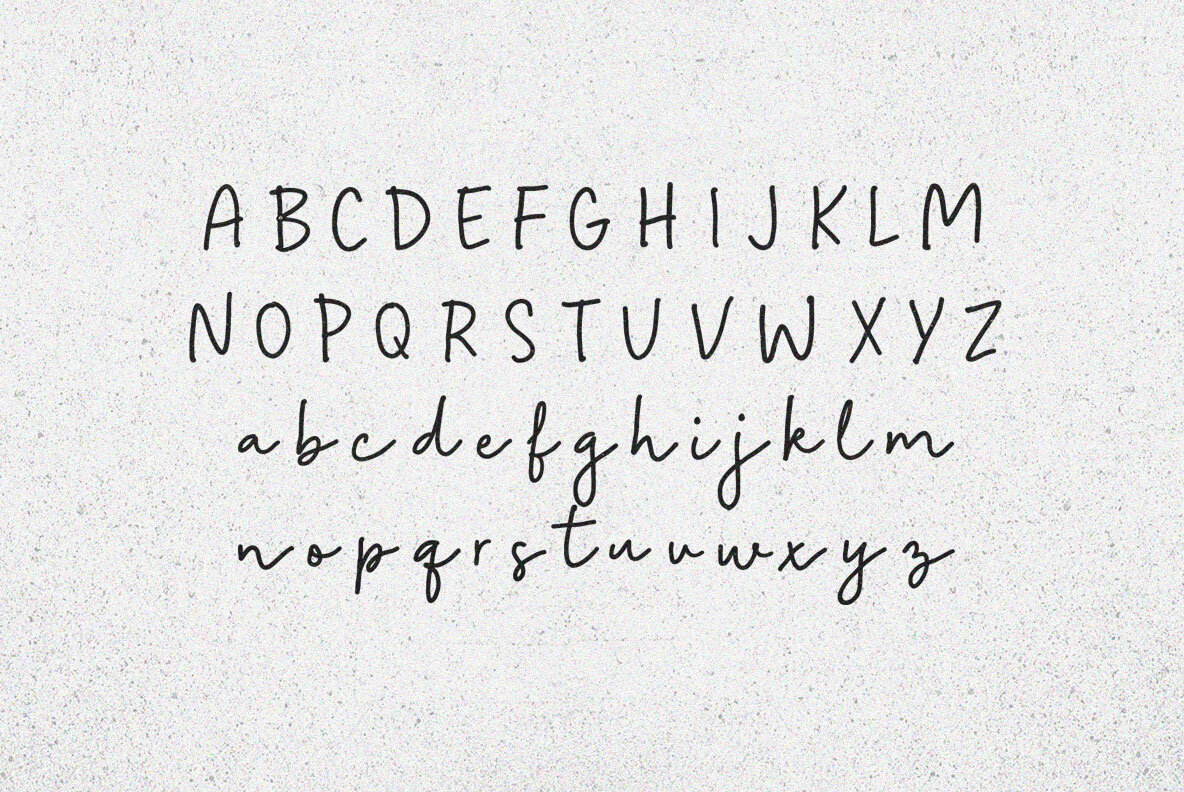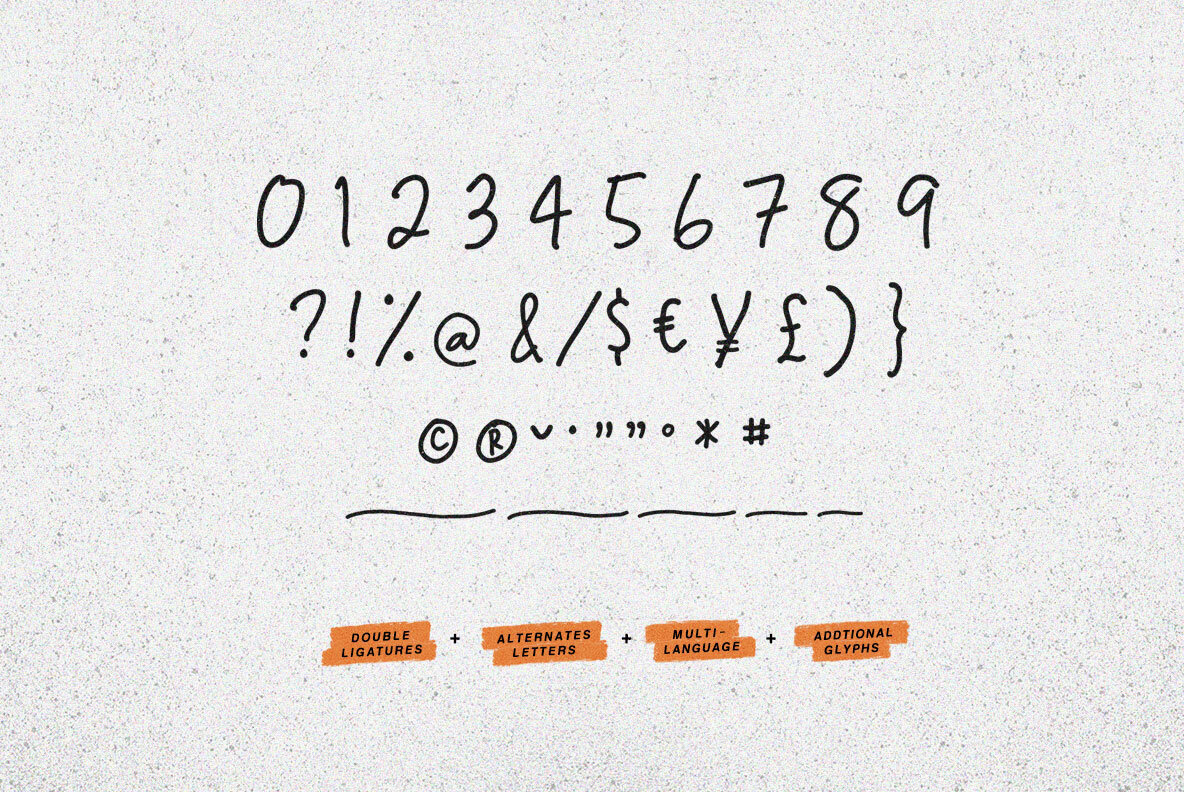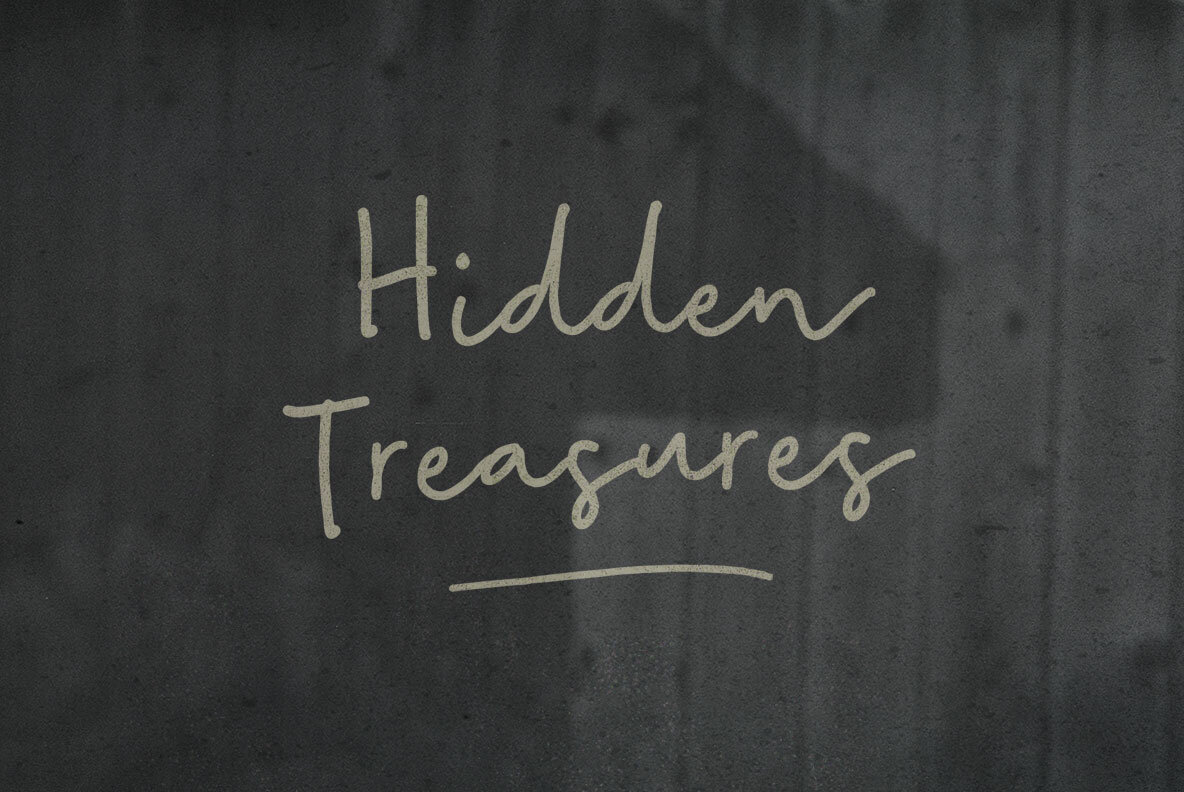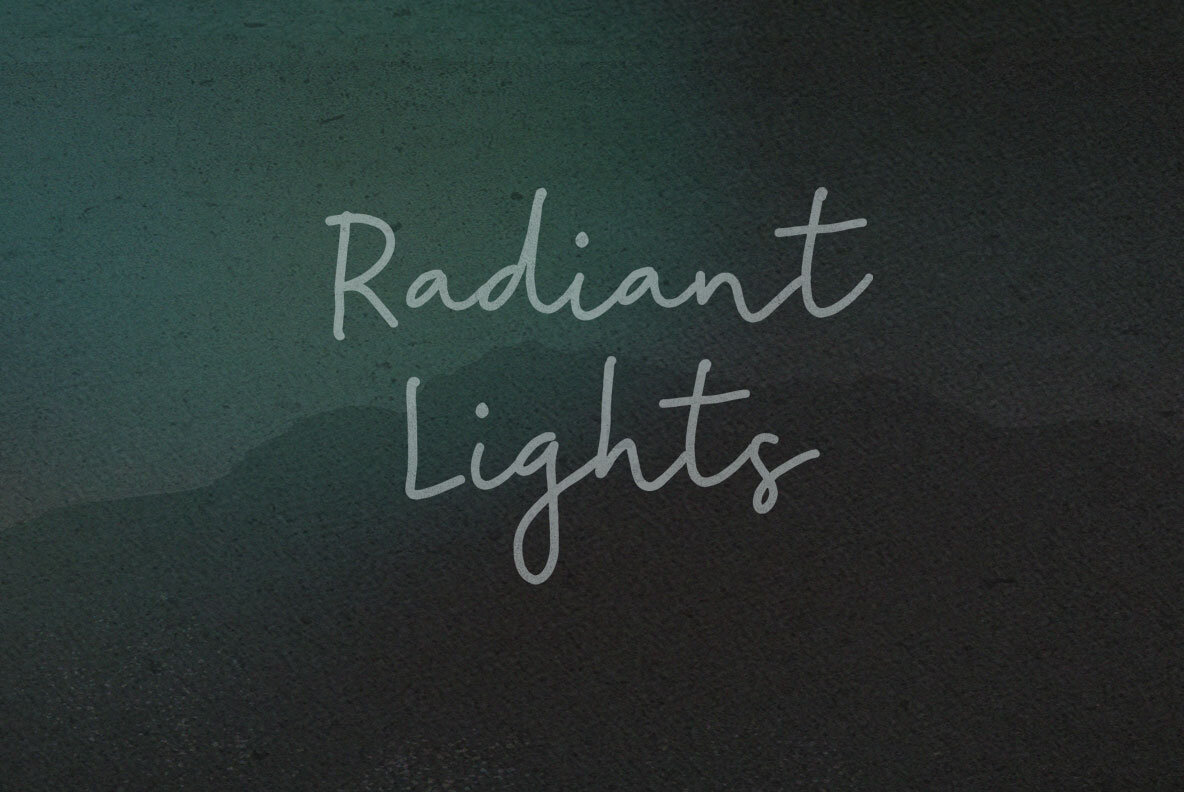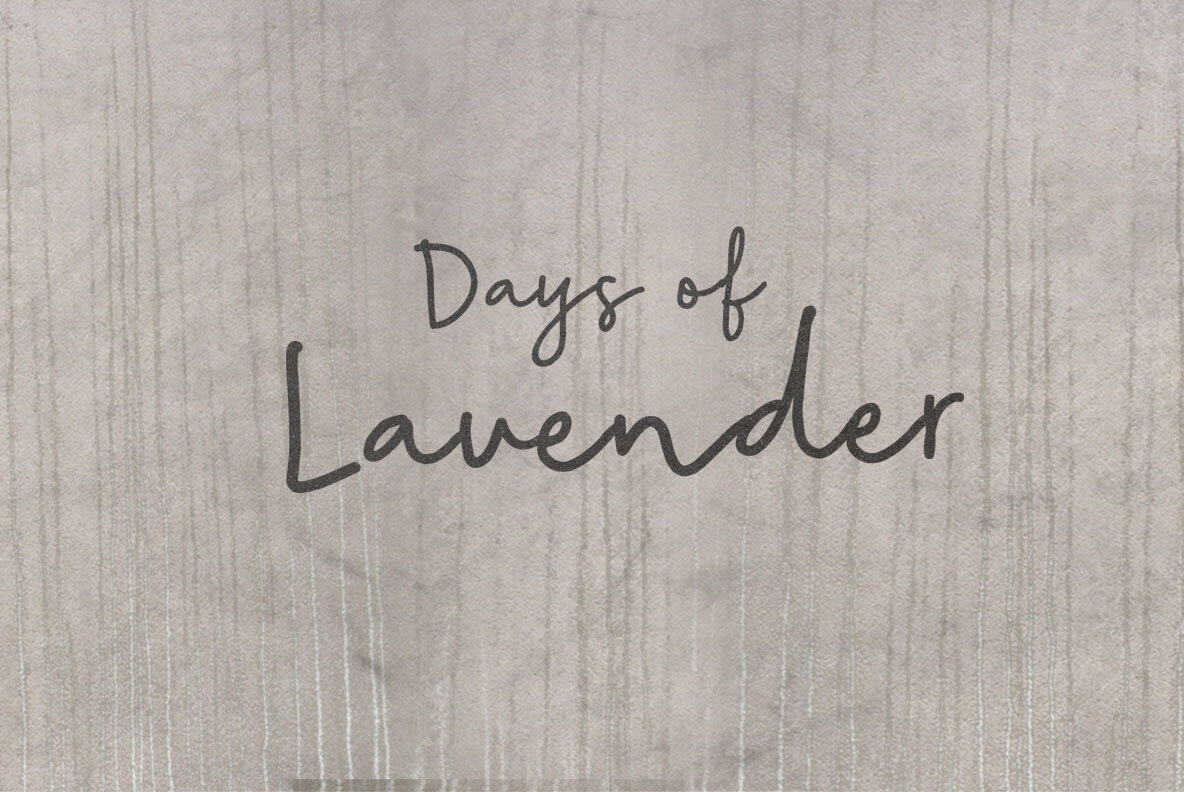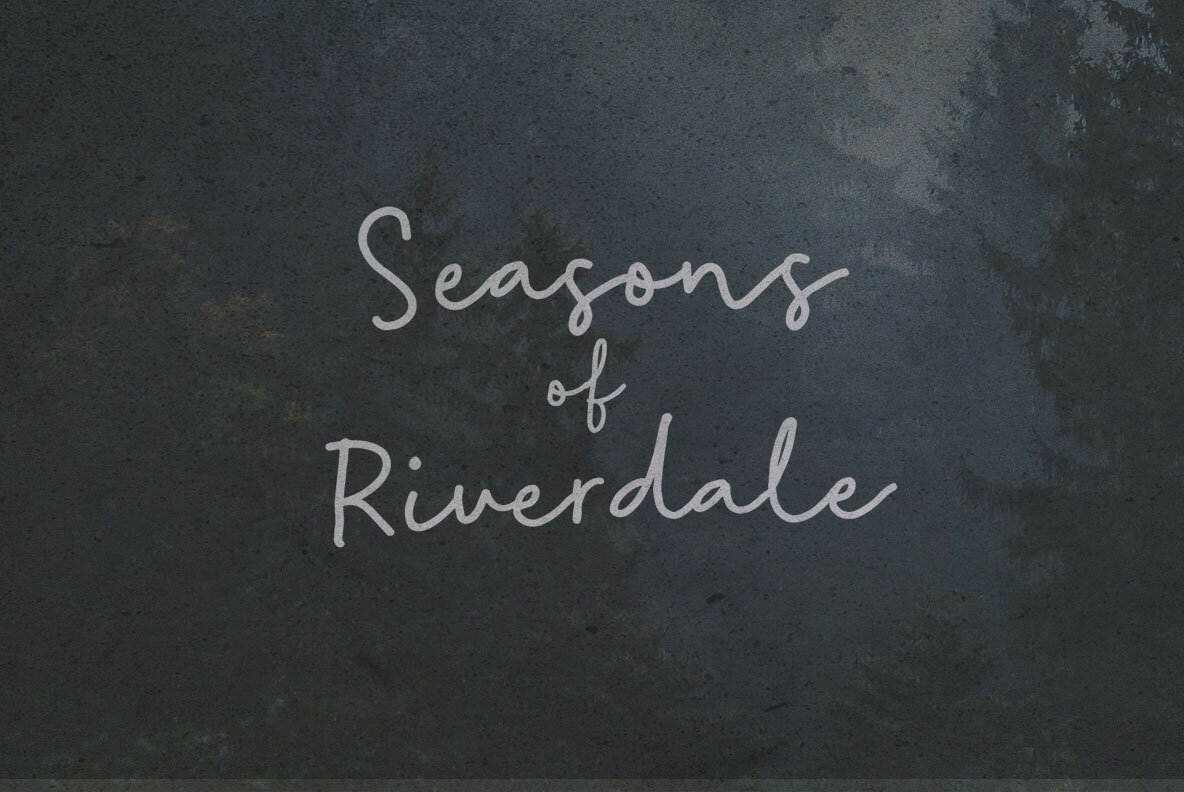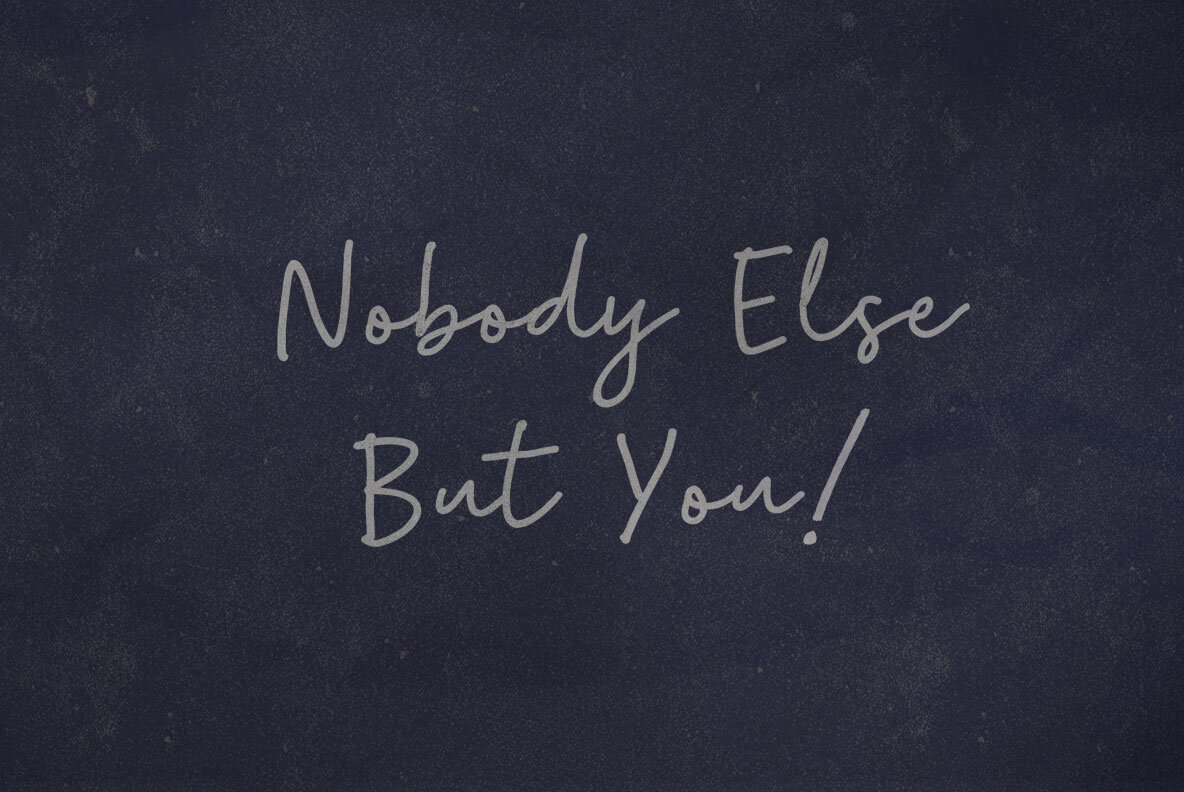
Easy Going Font
Easy Going
It's Easy Going. Staying is the hard part. Typically paired with power, the descriptor of a rare virtue, steady like stone silos, keeping things and holding us. Unlike the familiarity of change, our present eternity slipping away without a care, flying or falling, floating or flowing.